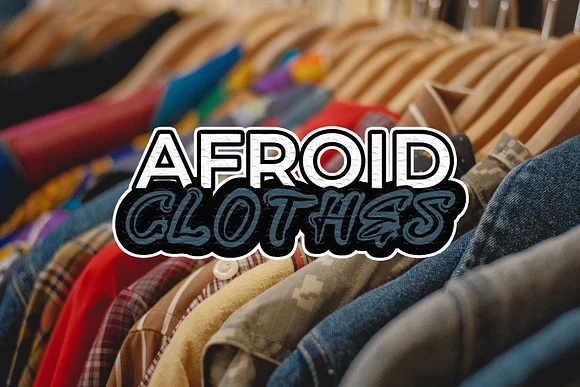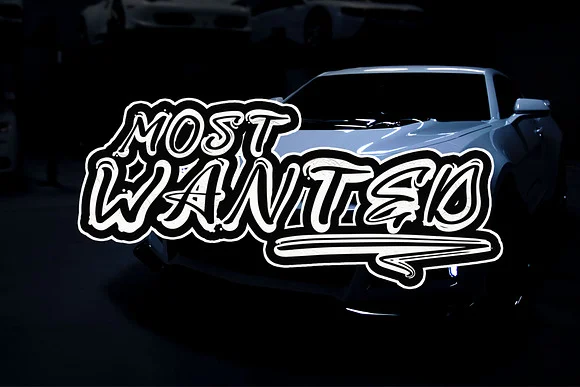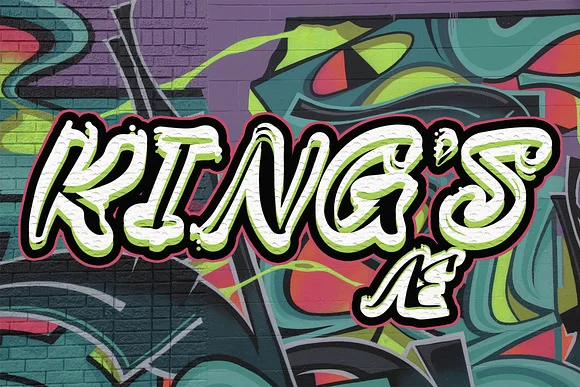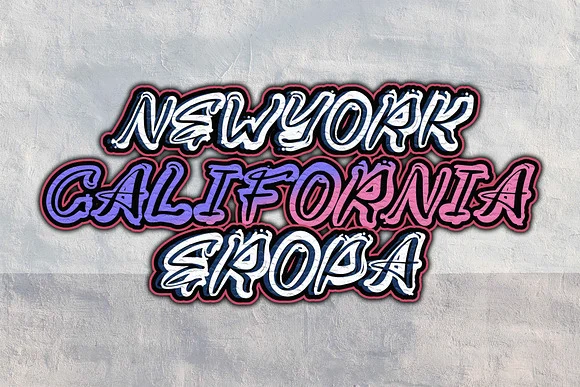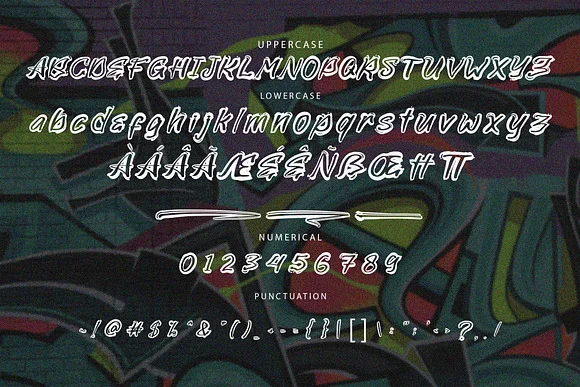
JACKWO Graffiti Font
JACKWO - Dripping Handbrush Graffiti Font Unleash your creativity with JACKWO, a bold graffiti font featuring a dripping handbrush style that brings an urban, edgy feel to your designs. The unique shapes and carefully crafted characters make this font perfect for adding a dynamic, eye-catching touch to posters, branding, street art-inspired graphics, and more. We truly appreciate your interest in downloading JACKWO and are committed to providing regular updates to keep this font fresh and up-to-date.